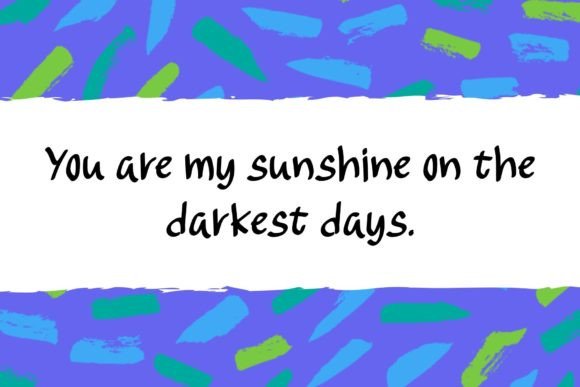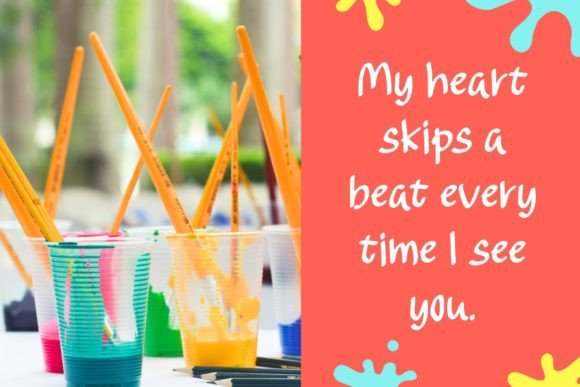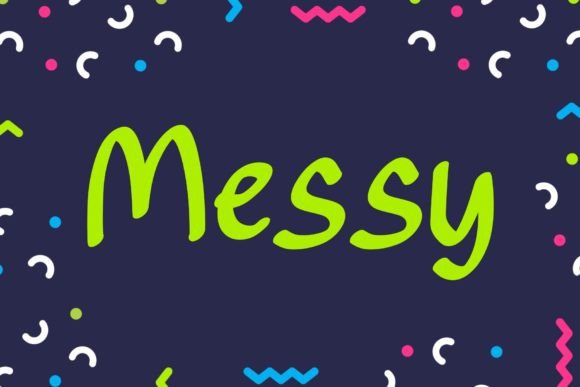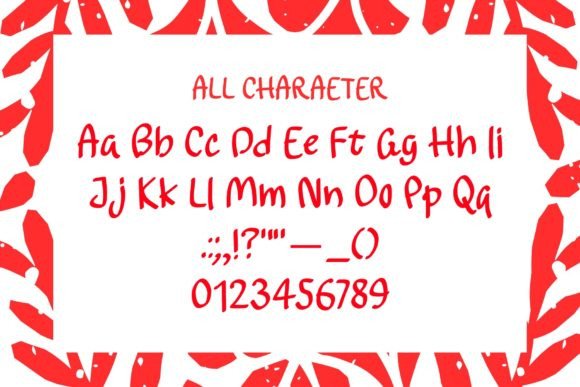
Introduction to Messy Font
Do you ever have those moments when you’re designing a project and you just can’t seem to find the right font to capture the essence of your creative vision? The words feel too polished, too perfect, too… predictable. That’s when I stumbled upon Messy Font, and my design world was forever changed.
With its unique and irregular letterforms, Messy Font is the perfect choice for adding a touch of artistic chaos to your designs. Whether you’re designing posters, logos, or invitations, this font will bring a sense of handcrafted charm and organic imperfection to your project. And the best part? It’s a high-quality design resource that’s free to download and use, making it a valuable addition to any creative project.
Key Features of Messy Font
- High-quality, unique design for creative projects and design resources
- Unique, hand-drawn style with imperfections and texture, adding a touch of personality to any design project
- Perfect for use in digital and print design, including logos, graphics, and typography
Honest Review: Messy Font
I recently stumbled upon the Messy Font, a high quality design resource that caught my attention. At first glance, I was drawn to its unique and playful style, perfect for a creative project.
- ✨ The font is highly customizable, allowing for a range of color and texture options to suit any design style.
- ✨ The transparent background feature makes it easy to layer over other design elements.
- ⚠️ The font may not be suitable for professional or formal designs, as its playful style may come across as unprofessional.
- ⚠️ The customization options can be overwhelming, making it difficult to achieve a cohesive look.
Overall, I was impressed with the Messy Font’s versatility and potential. While it may have some limitations, it’s a great resource for designers looking to add a touch of creativity to their projects.
Tips for Getting the Most Out of Messy Font
Use Messy Font to add a touch of personality to your design projects. Experiment with different font sizes, colors, and alignments to create a unique look. You can also use Messy Font as a design resource to create high-quality graphics and visuals.
Messy Font is perfect for creative projects such as social media graphics, flyers, and brochures. You can also use it to create high-quality graphics for presentations, reports, and documents. With its free download option, you can access a wide range of fonts and designs to suit your needs.